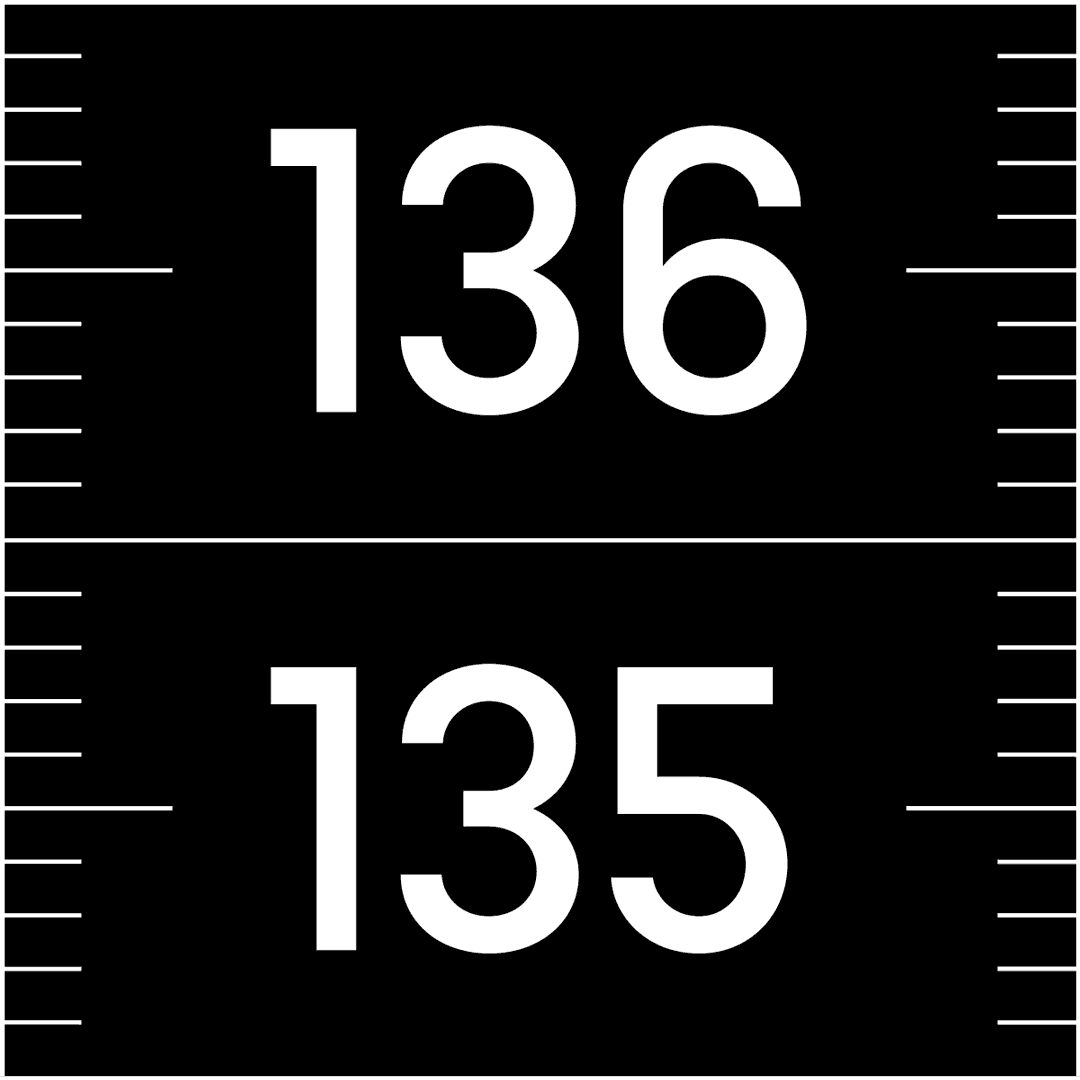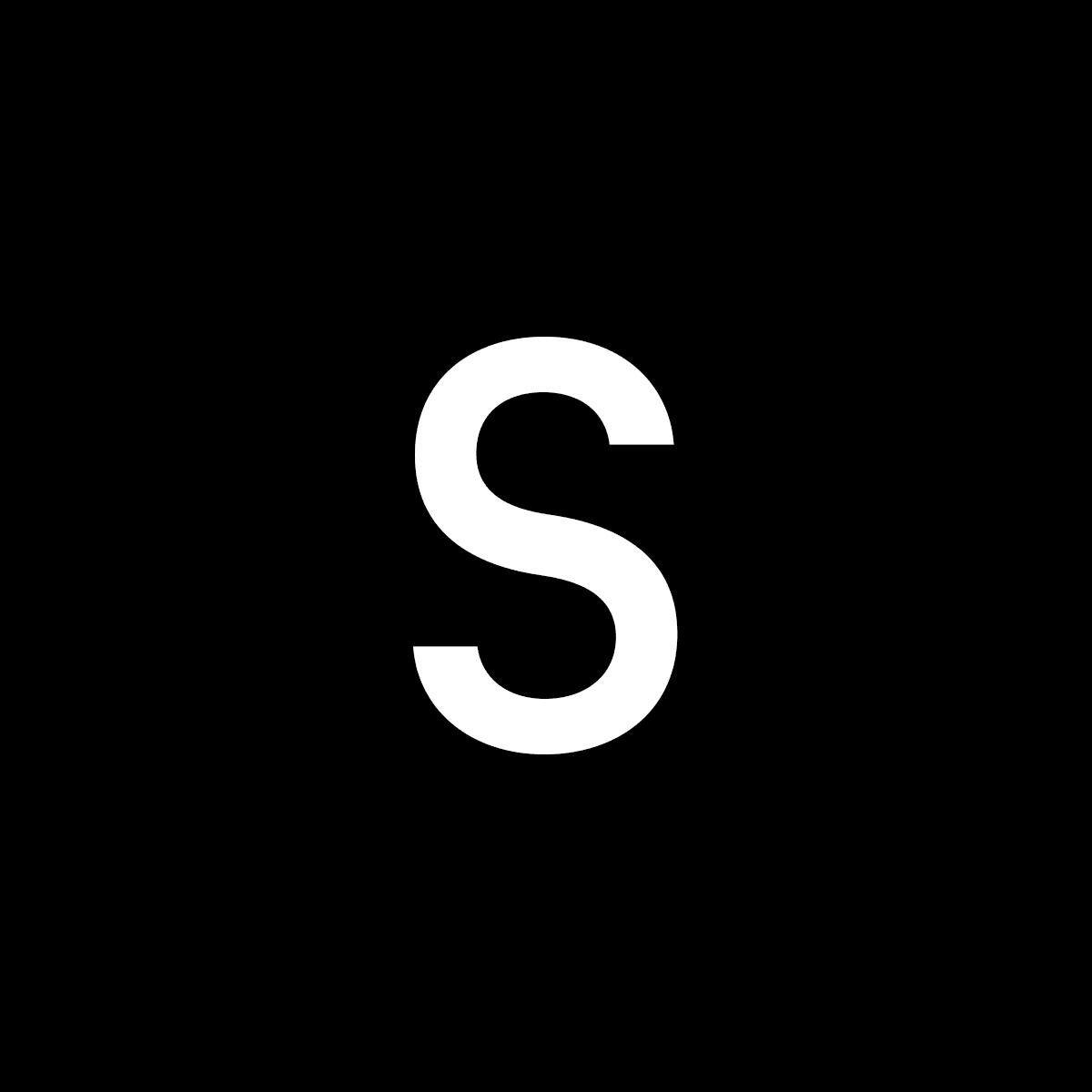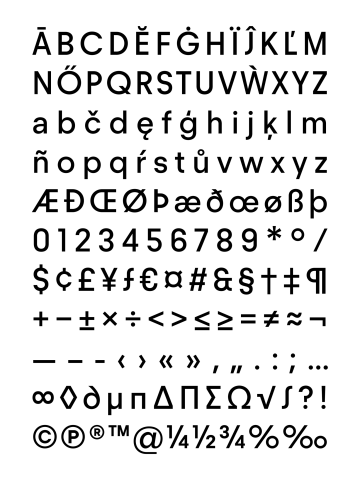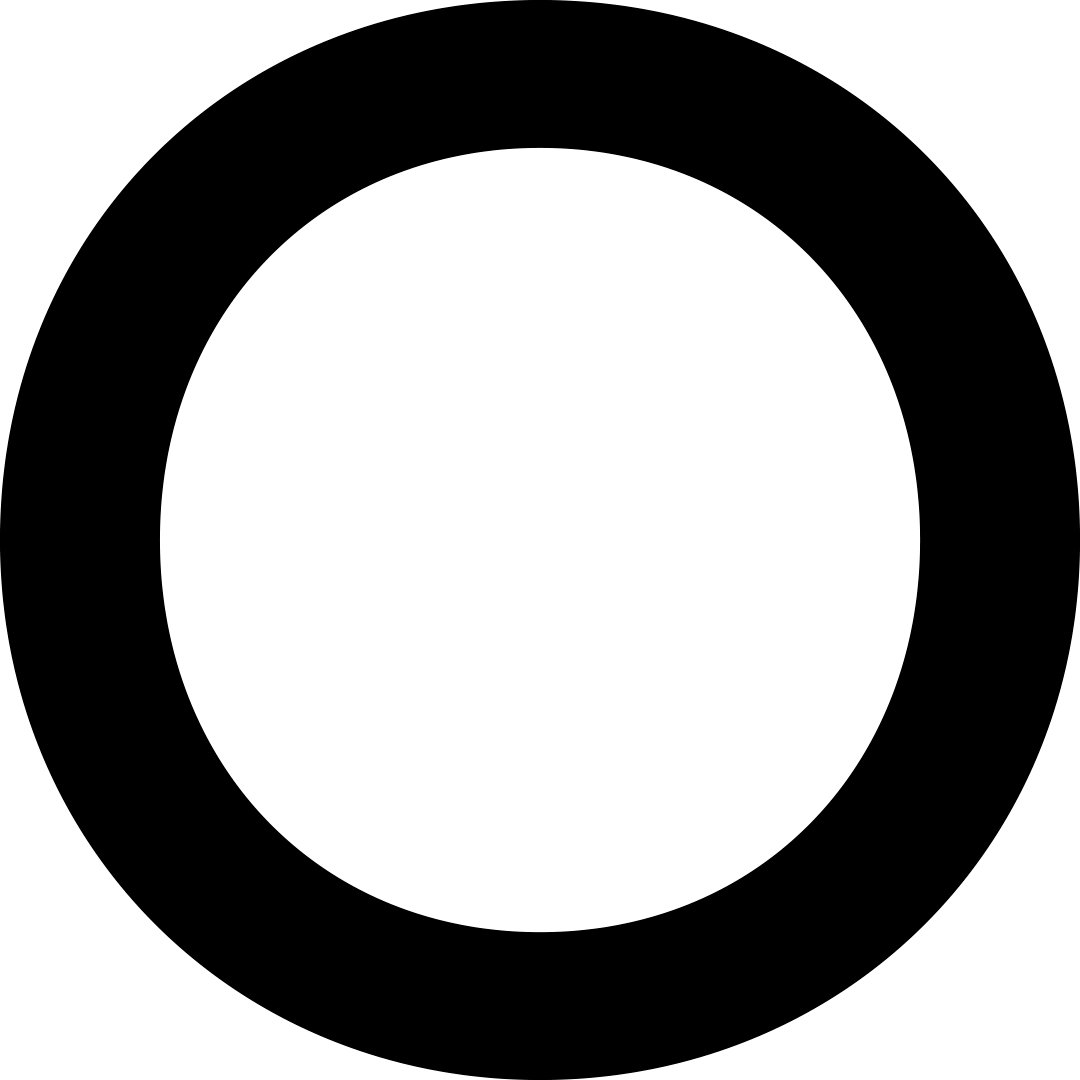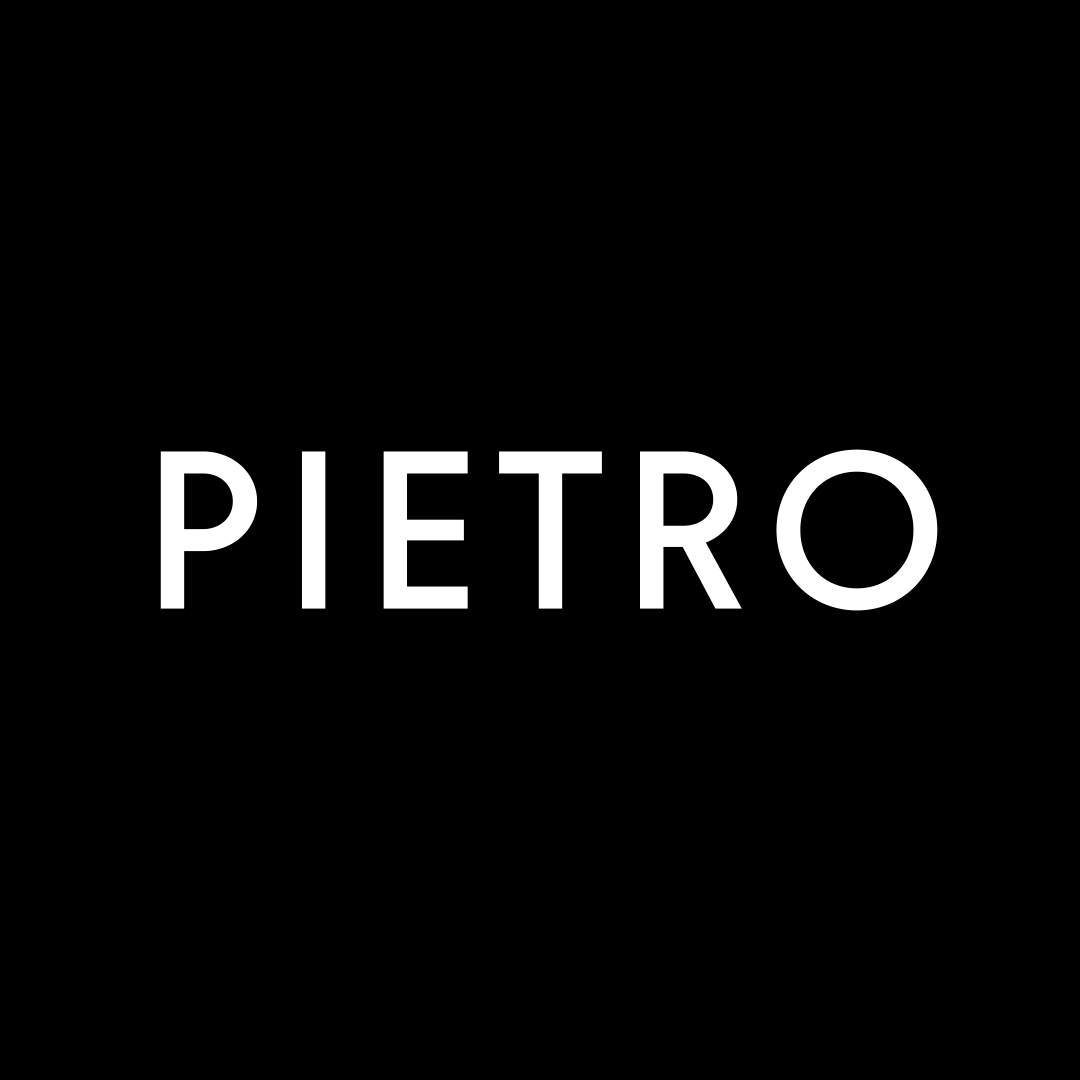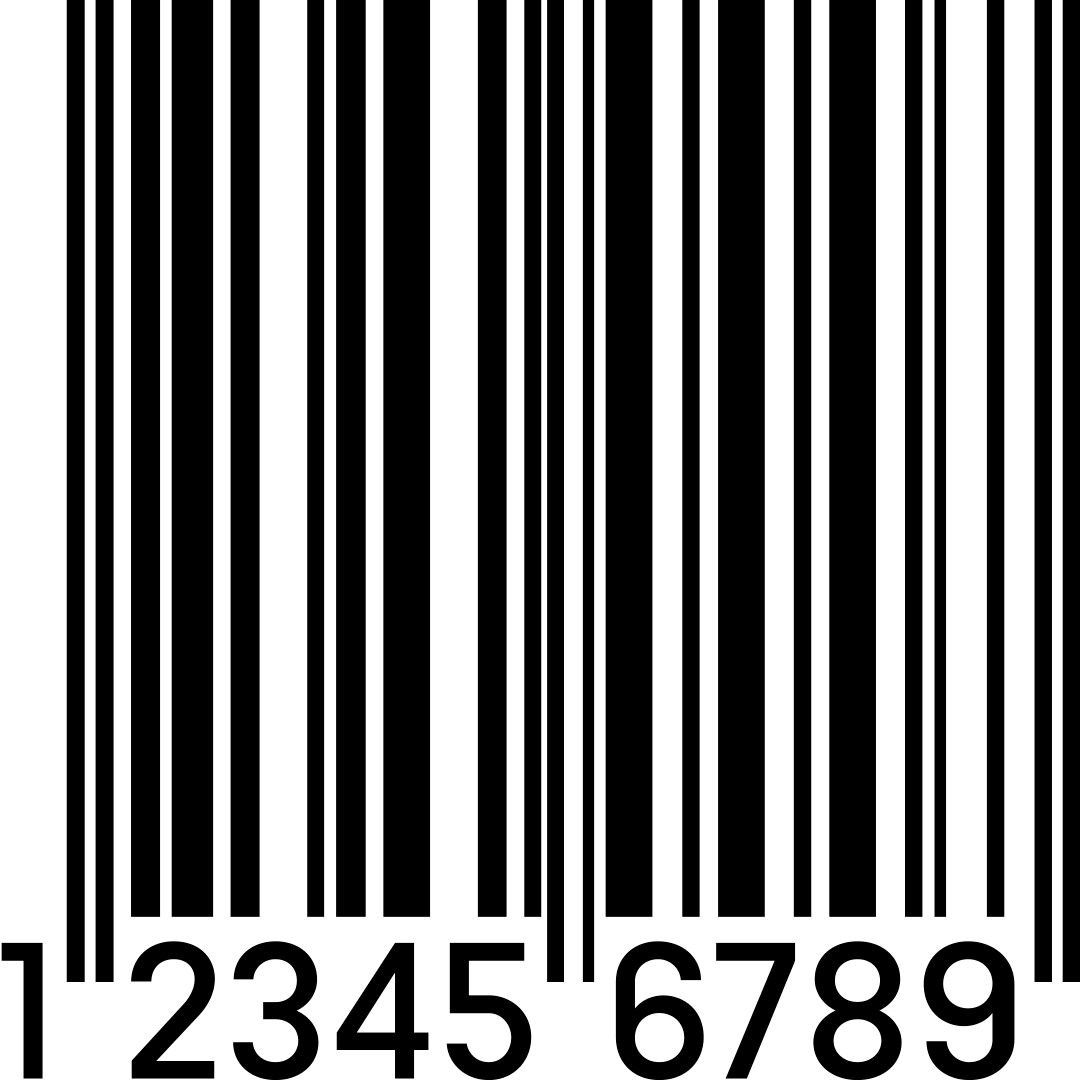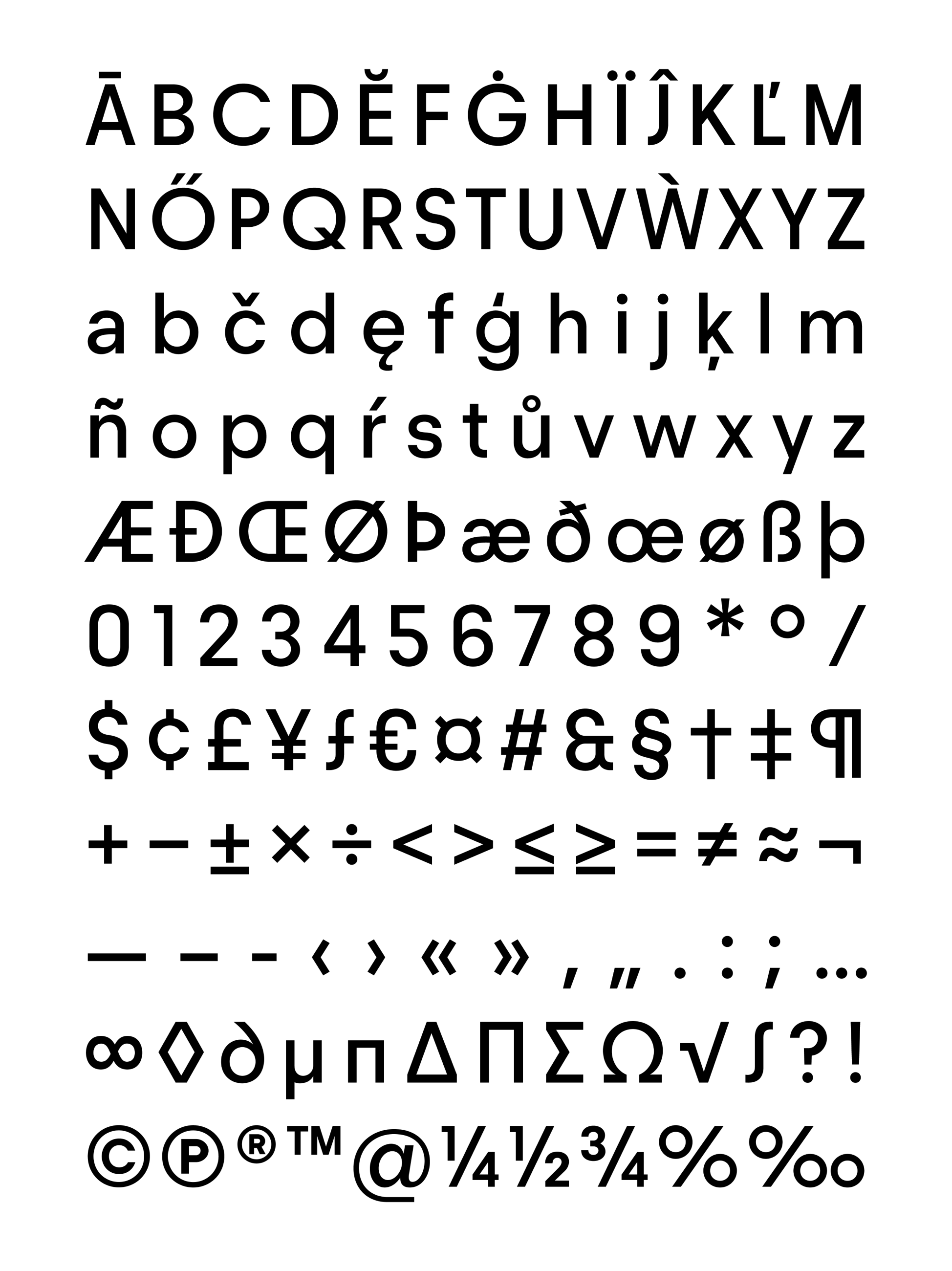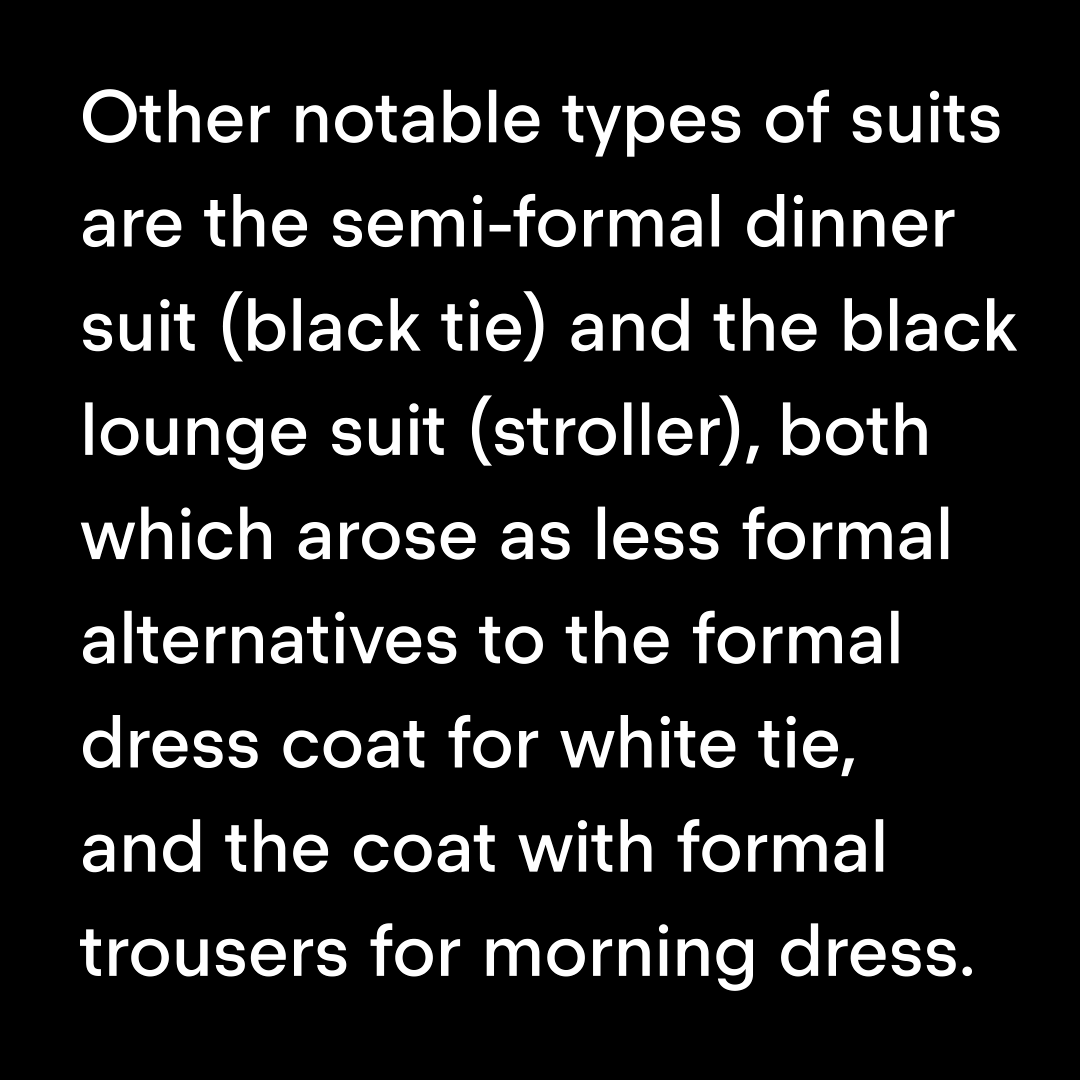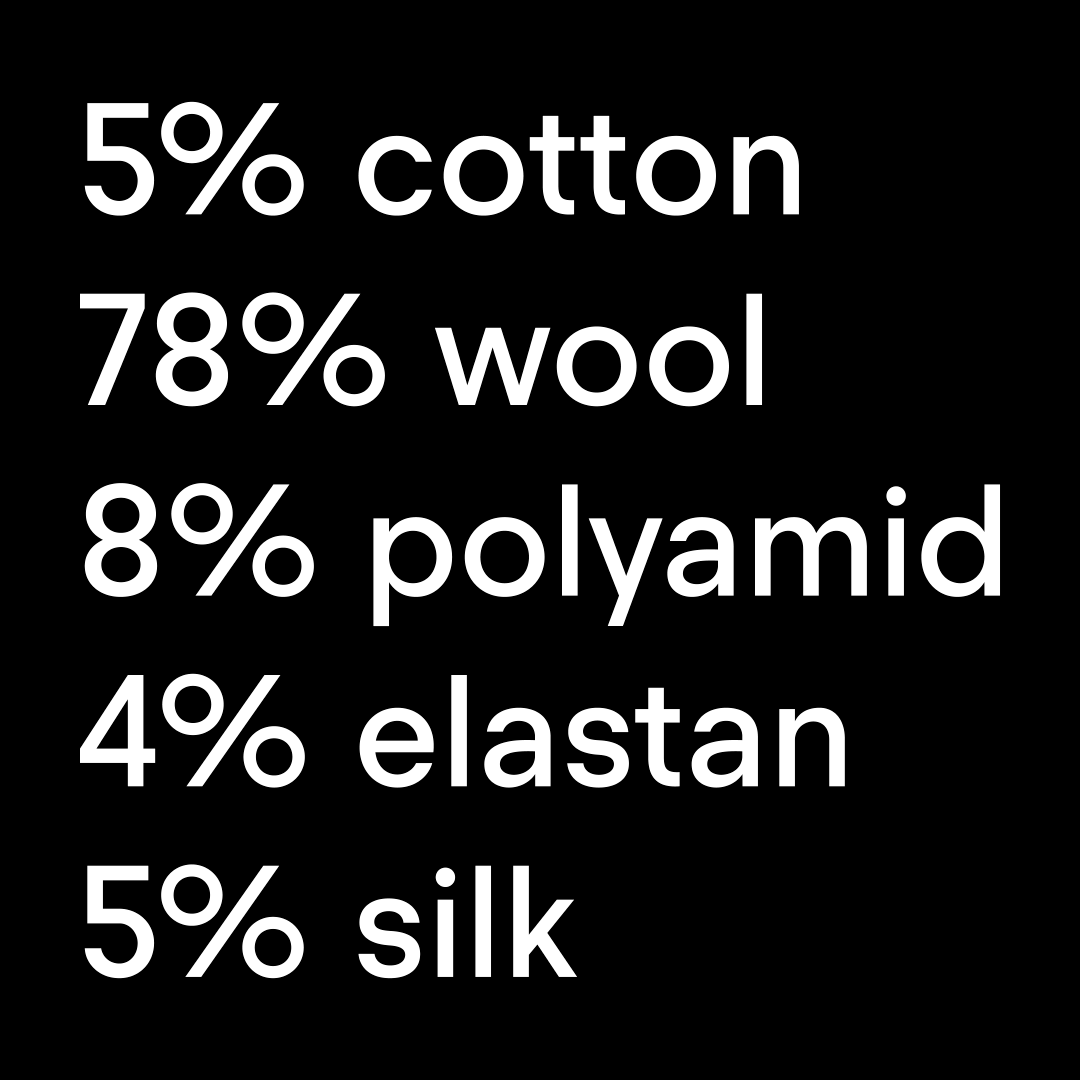
Pietro
Sans serif Pietro was created in 2019 as part of the rejuvenation of the Czech clothing brand Pietro Filipi. Like the company’s new logo, it was shaped by the current emphasis on digital communication and the necessary flexibility in print as well as online. The typeface’s one font with standard weight thus exemplifies a contemporary look at the genre, whose most famous representative is probably Paul Renner’s Futura. It balances between classical proportions, geometric rigor and functionality, and the universal appeal of its neutral form gives it a sustainable timelessness. The character set contains both small letters and caps with a wide language support.
Designer: Marek Pistora
Technical cooperation: Jakub Spurný
Additional cooperation: Jakub Spurný (technical cooperation)